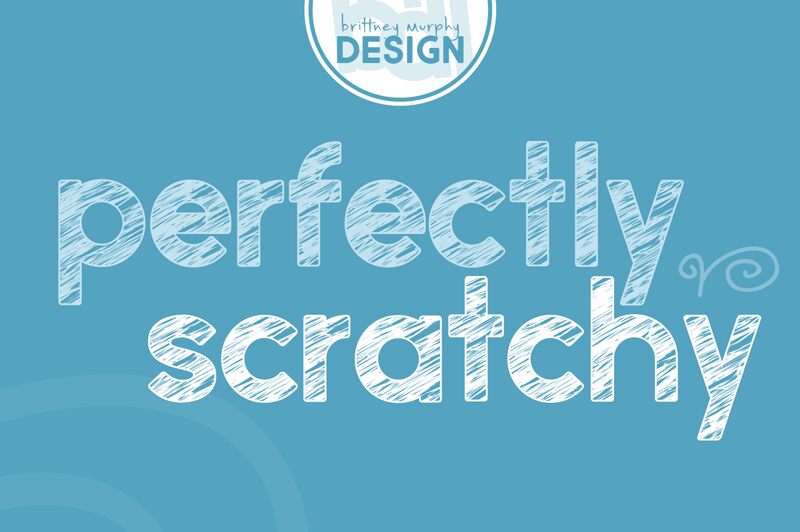
perfectly scratchy Regular
Perfectly Scratchy, designed by Brittney Murphy, brings a unique character to the realm of display fonts with its semi-bold and eroded style. This font captures an aesthetic that's both raw and refined, making it ideal for projects that require a touch of grunge while maintaining readability. Its textured appearance evokes a handcrafted feel, perfect for designs that aim to stand out with an authentic edge.
Whether used in branding, poster design, or editorial work, Perfectly Scratchy offers versatility with its distinctive style. The semi-bold weight ensures that it holds its own in larger displays without overwhelming the senses. For designers seeking a font with personality and visual interest, Perfectly Scratchy is a compelling choice that promises to infuse your creative project with just the right amount of worn-in charm.